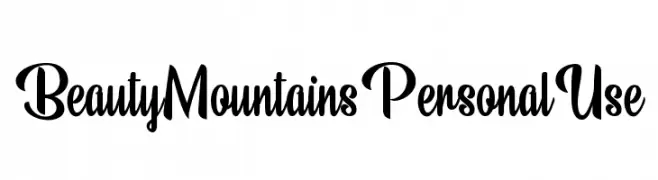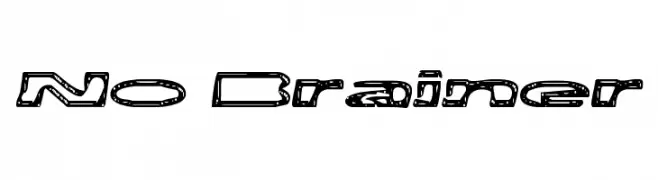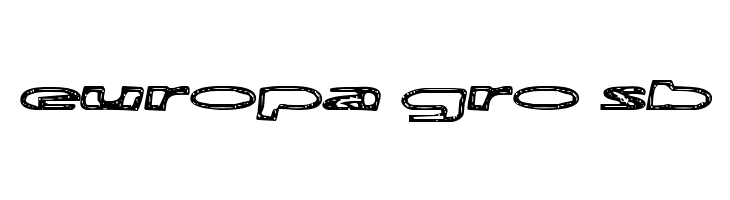
( Benjamin Failor )
A playful font with characters inside teapot shapes, featuring dotted steam for a whimsical touch.
( Billy Argel - billyargel.com/ )
A bold, flowing script font with elegant curves and a modern yet timeless appeal.
( Brian McFeely )
A bold, modern geometric font with sharp angles and clean lines.
( Character )
A bold, Gothic-inspired font with sharp edges and pointed serifs.
( Daniel Nagura - )
A playful, hand-drawn font with a whimsical and artistic style.
( Daniel Nagura - )
A playful, hand-drawn font with bold, irregular strokes and medium contrast.
( David Kerkhoff - www.hanodedfonts.com )
A chaotic, hand-drawn font with a rough, expressive style.
( Digital Type Foundry - www.digitaltypefoundry.com/ )
A mystical and decorative font with intricate, esoteric designs.
( Digital Type Foundry - www.digitaltypefoundry.com/ )
A traditional blackletter font with ornate, angular letterforms.
( Dry Heaves - www.drybohnz.com/ )
A bold, futuristic outline font with a three-dimensional effect.